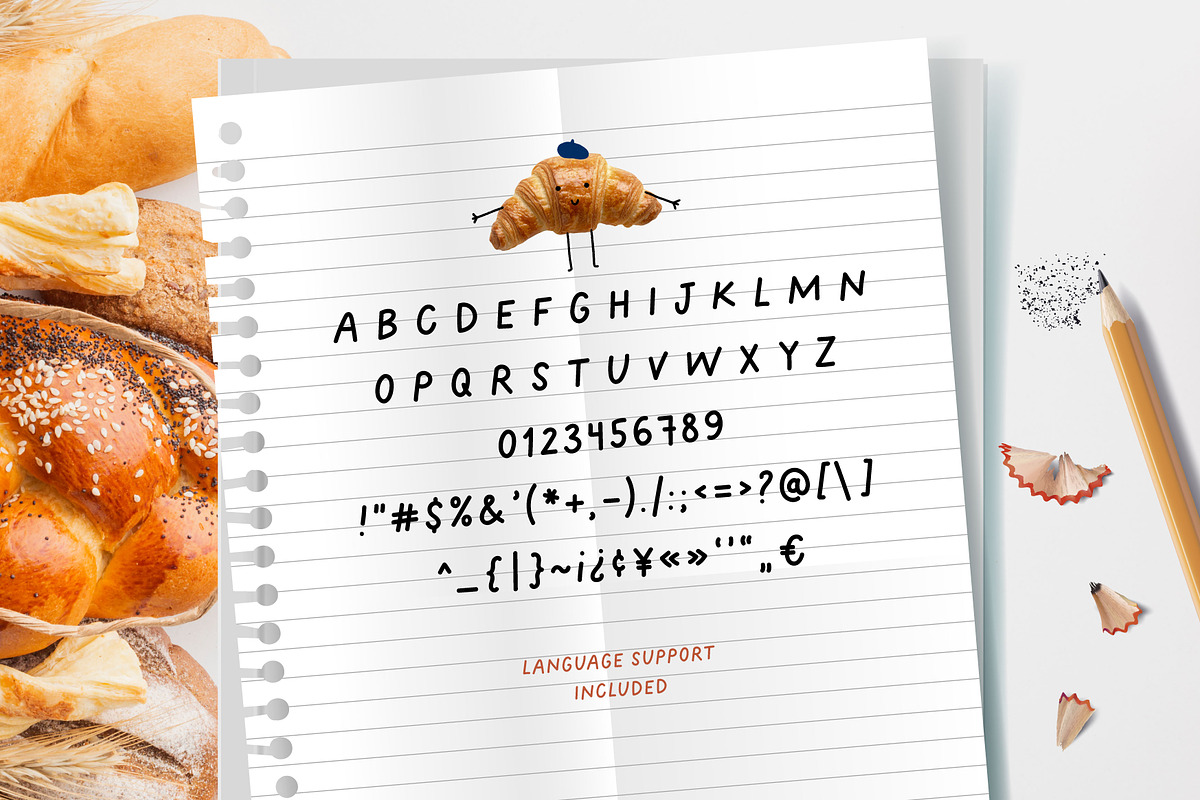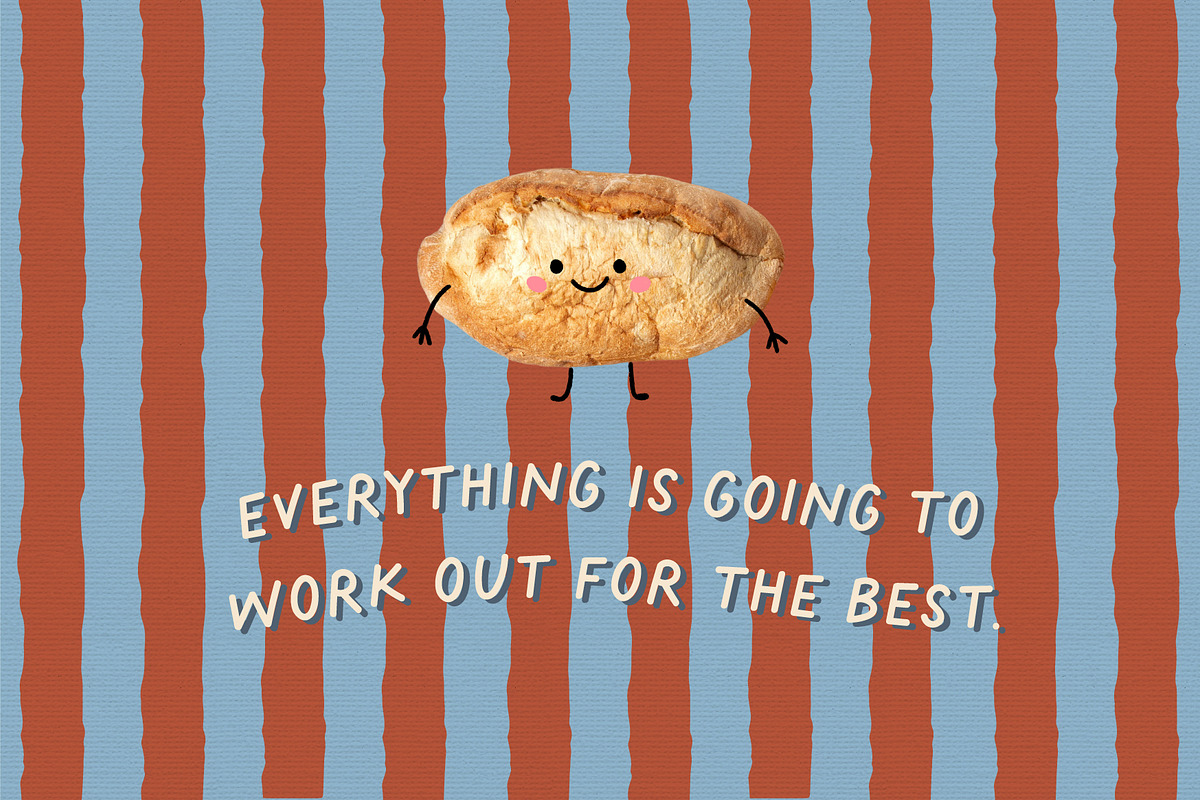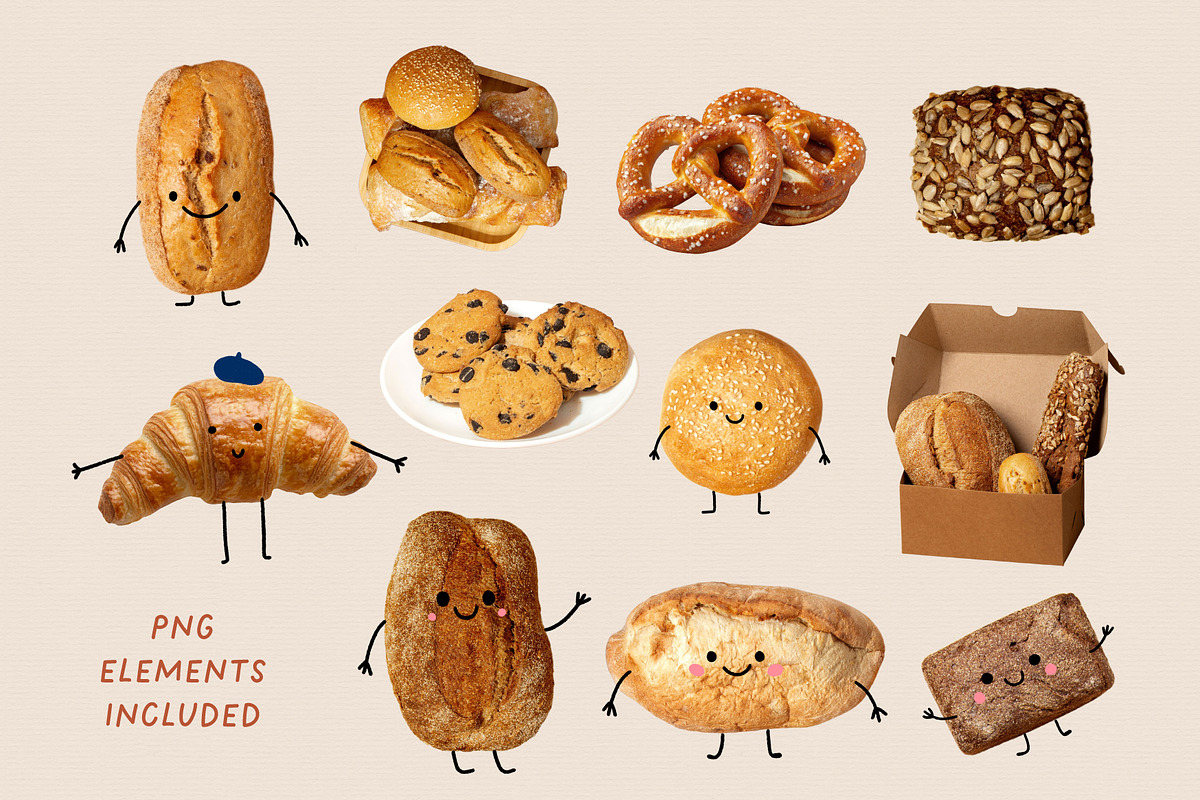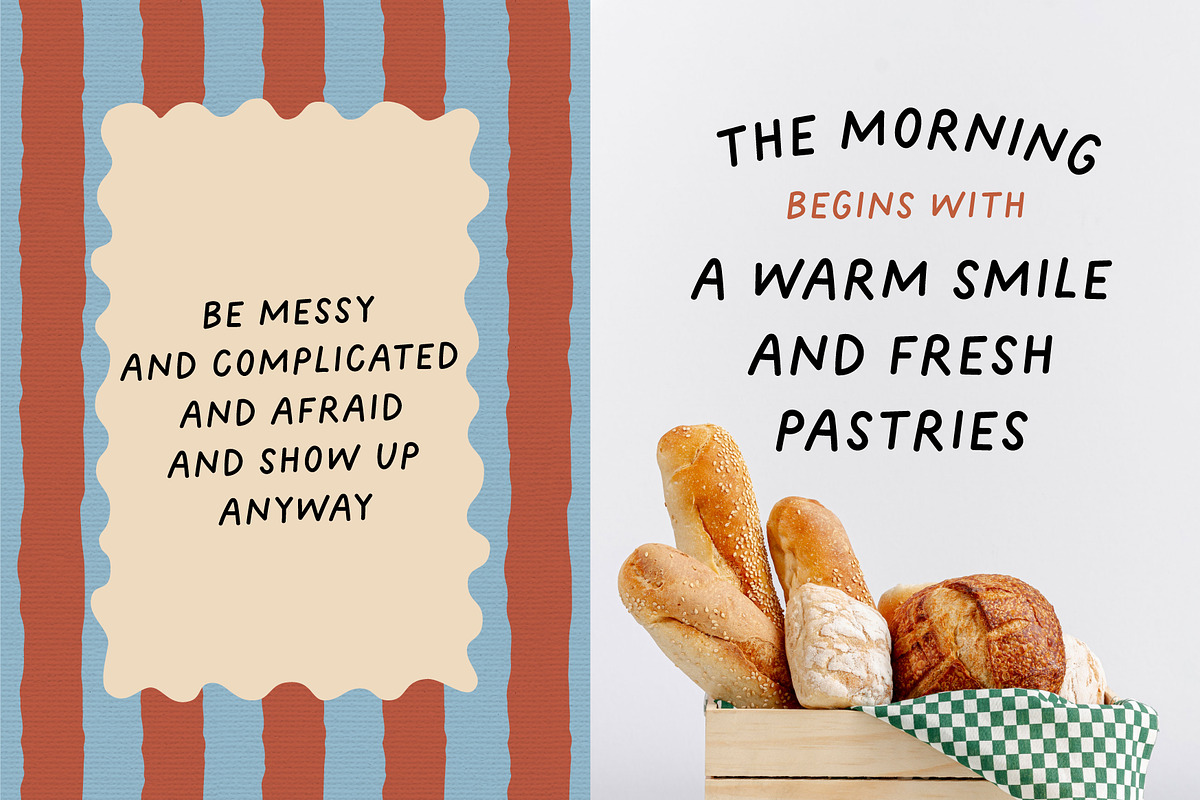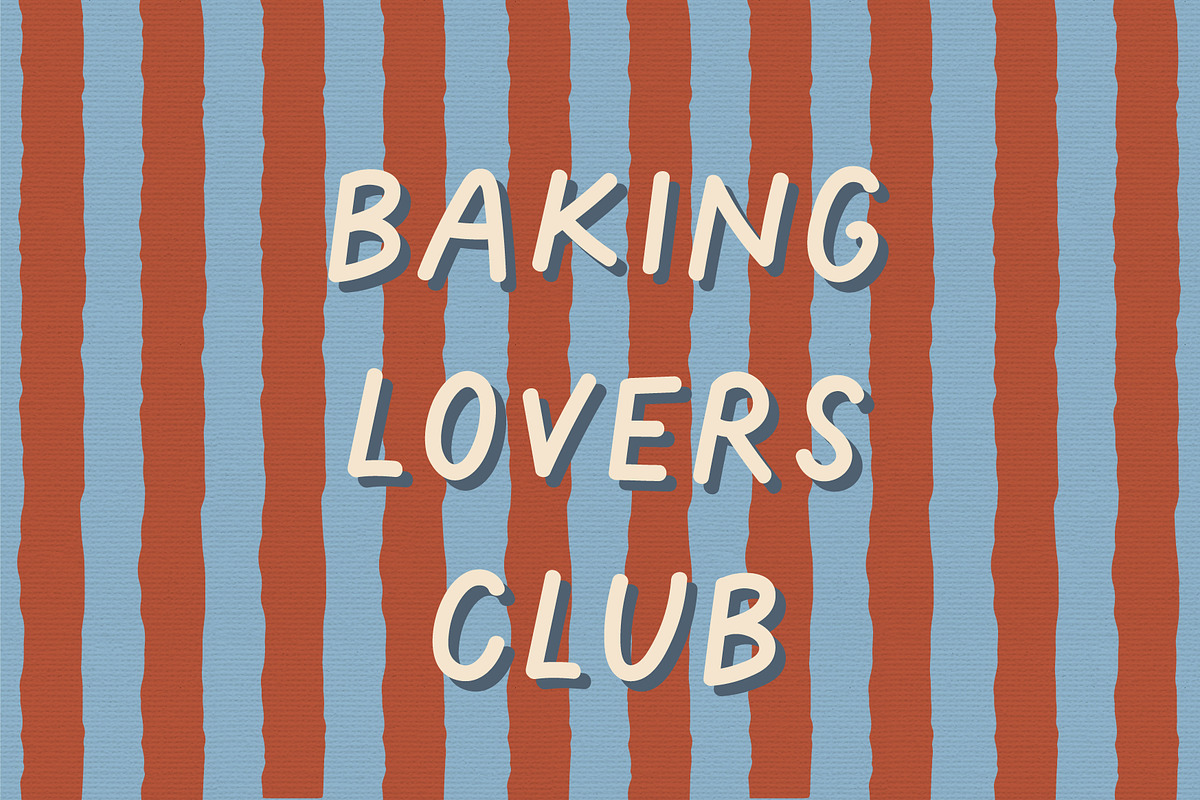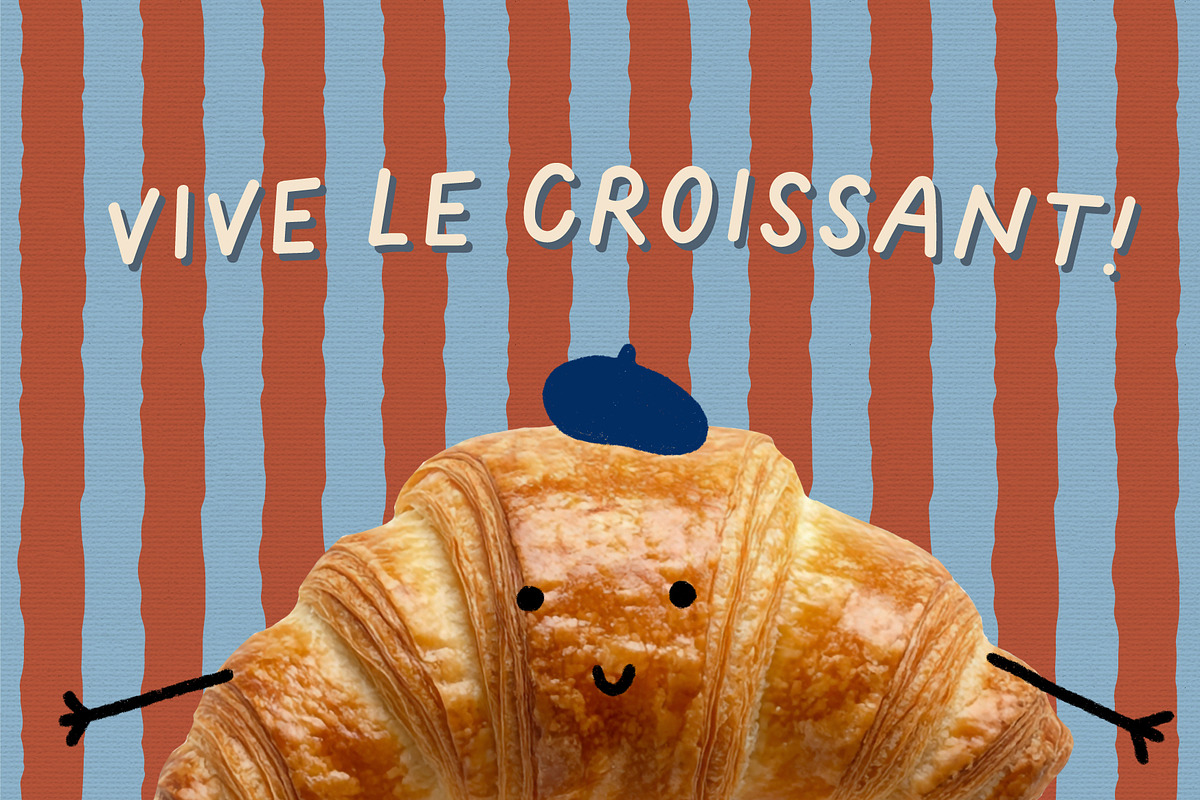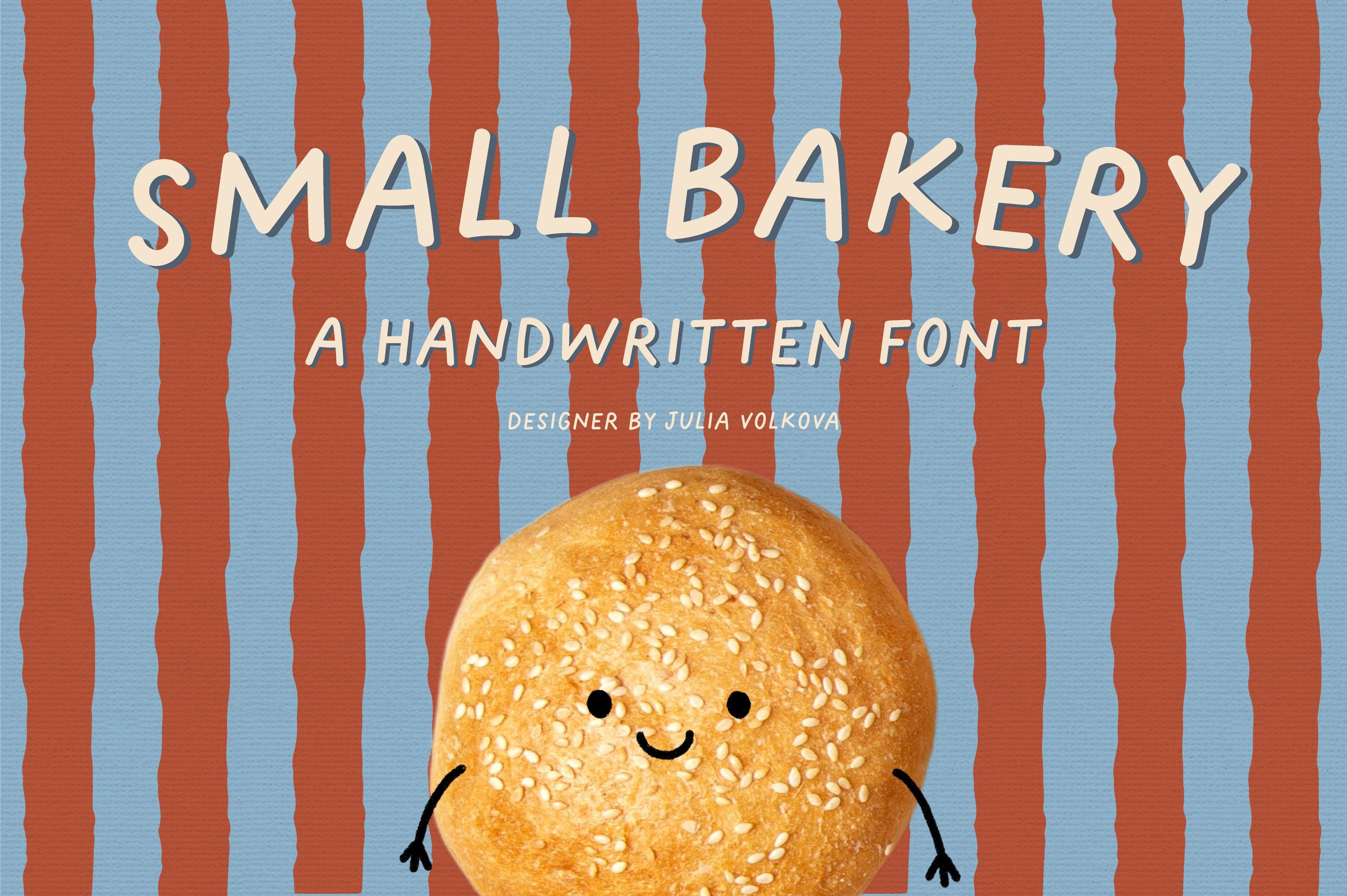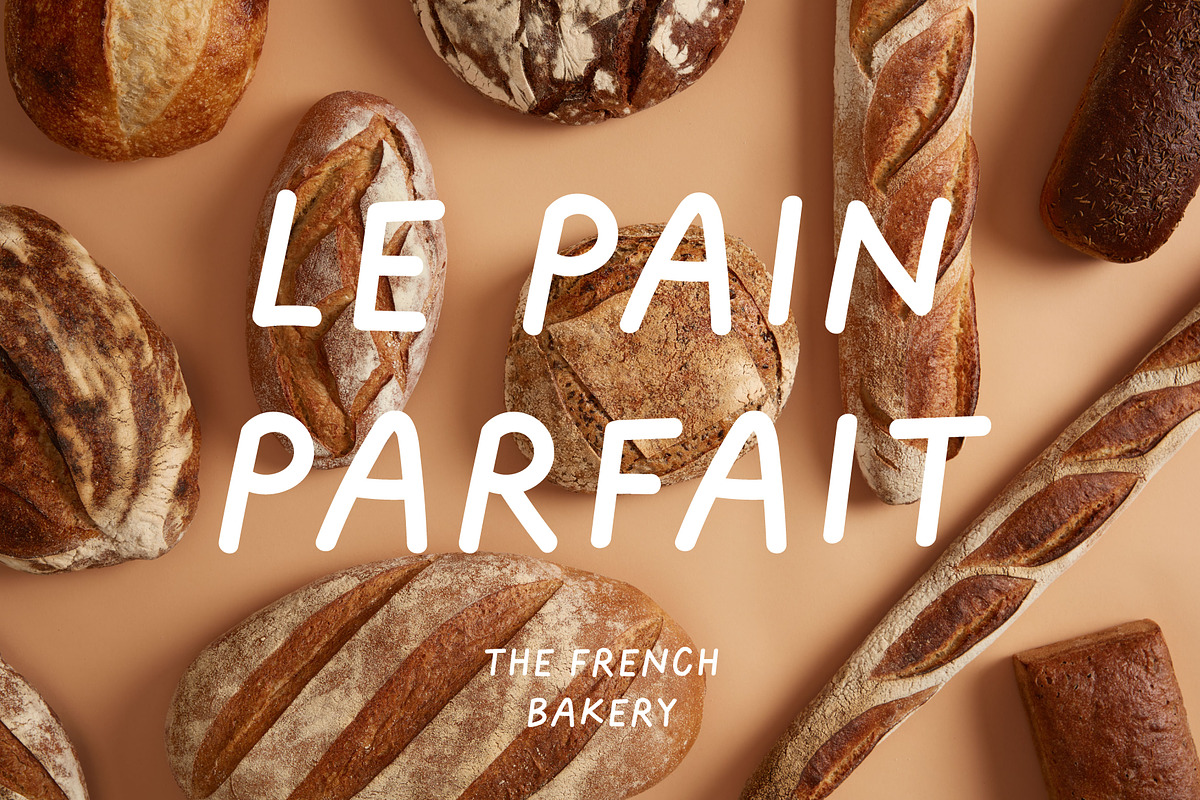
Small bakery | handwritten font
Introduce you my new a handwritten font created especially for those moments in life when you want to add a touch of warmth and sincerity to any message - be it a greeting card, stylish poster, inspiring presentation, heartwarming children's book, posters, branding, and any creative project.